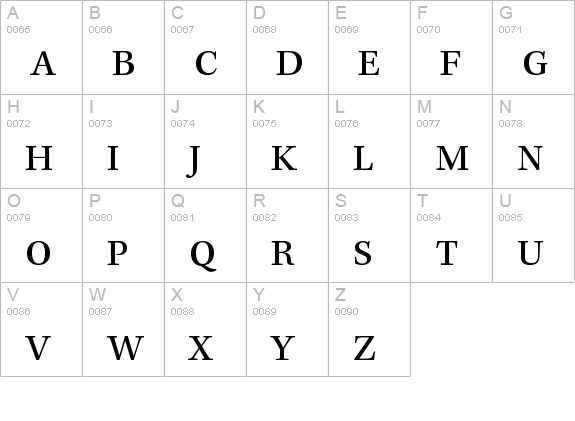
Kepler Std Caption Font Details
Kepler Std Caption is a modern and versatile font that combines elegance with readability. Its clean and crisp lines make it perfect for captions, headlines, and any other design element that requires a touch of sophistication. The font features a unique balance of classic and contemporary elements, making it suitable for a wide range of projects. Its slightly condensed letterforms ensure optimal legibility, even in small sizes, while maintaining a distinct sense of style. One of the standout features of Kepler Std Caption is its versatility. It effortlessly adapts to various design styles, from minimalist to bold and expressive. Its timeless appeal makes it a reliable choice for designers looking to add a touch of professionalism and elegance to their work. And the best part? Kepler Std Caption is available for free download at FontsMarket.com. This means that you can easily access and use this stunning font in your projects without any hassle. Whether you're a professional designer or a hobbyist, this font is a valuable addition to your typographic toolkit. So why wait? Enhance your designs with the beauty and versatility of Kepler Std Caption. Download it for free at FontsMarket.com and elevate your creative projects to new heights.